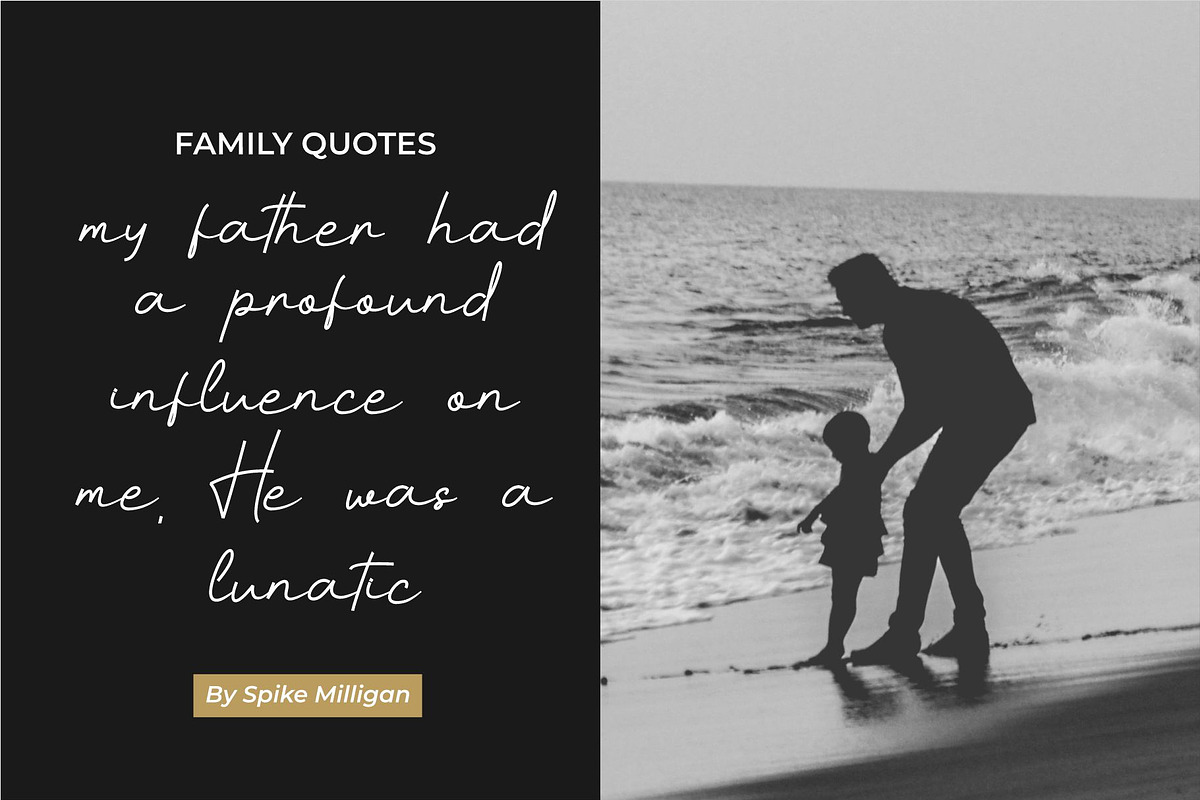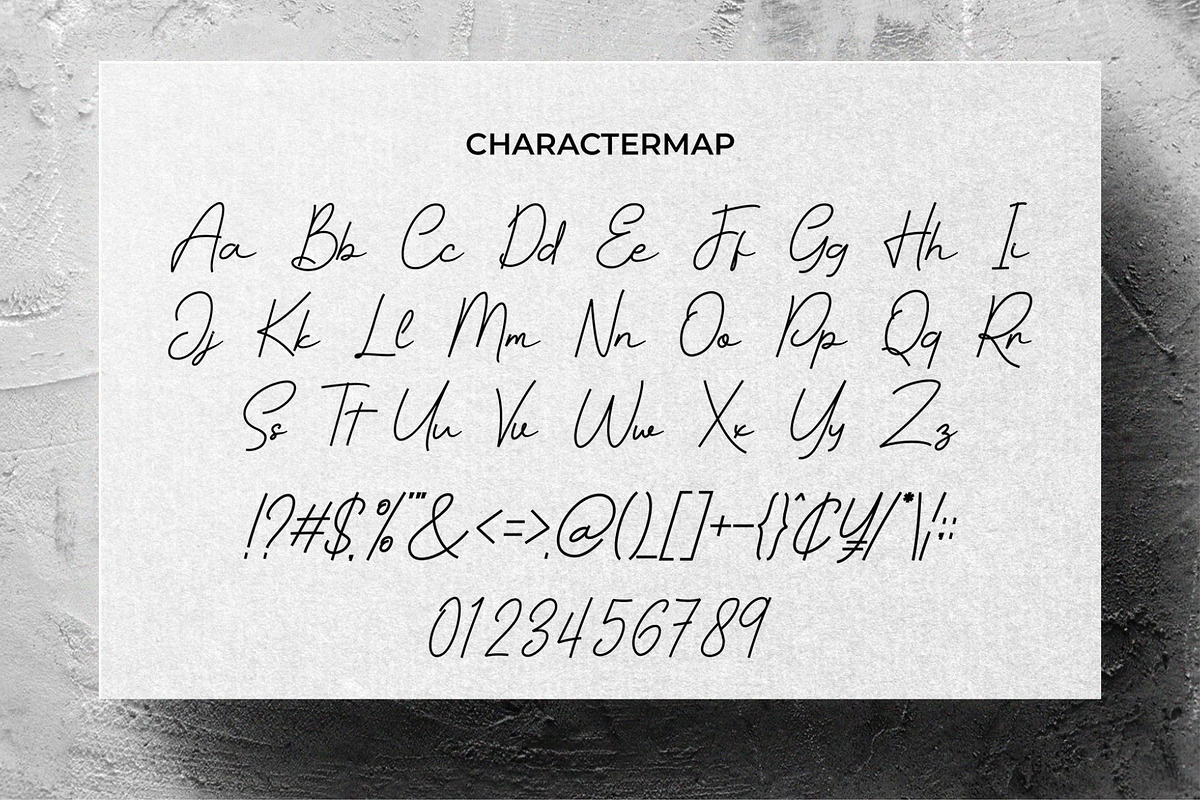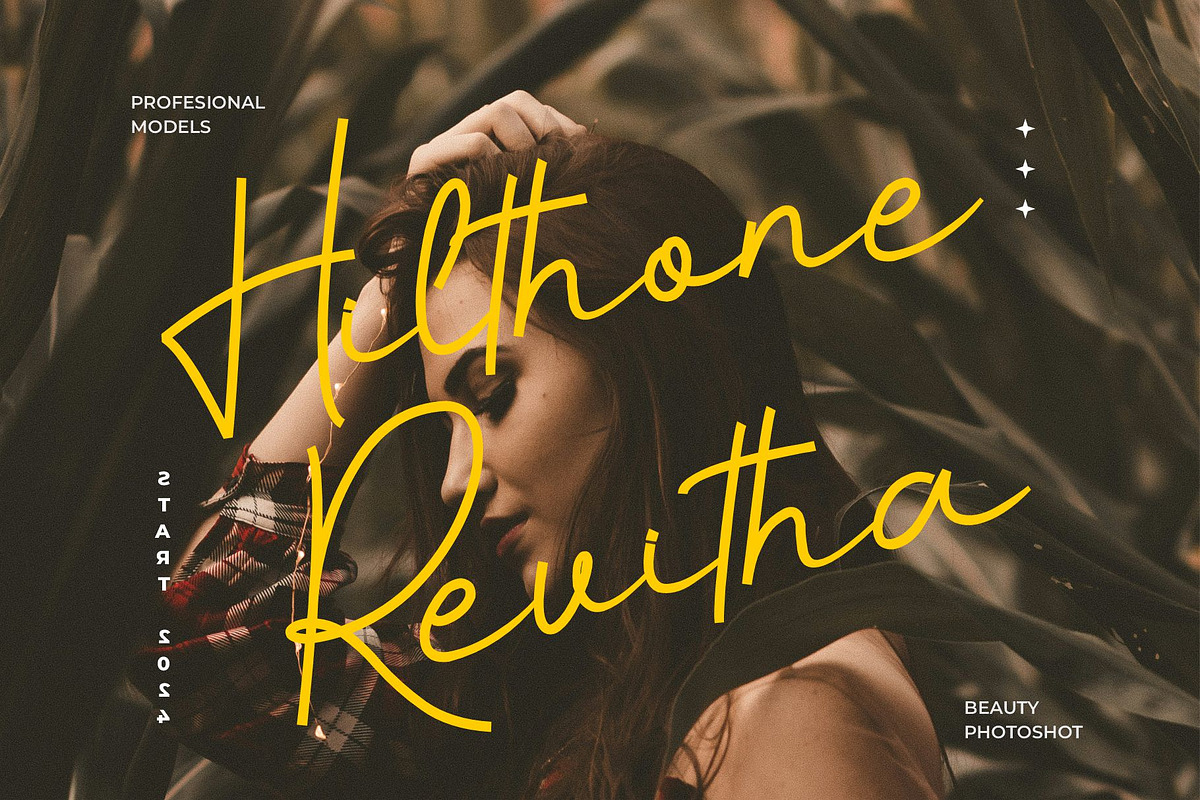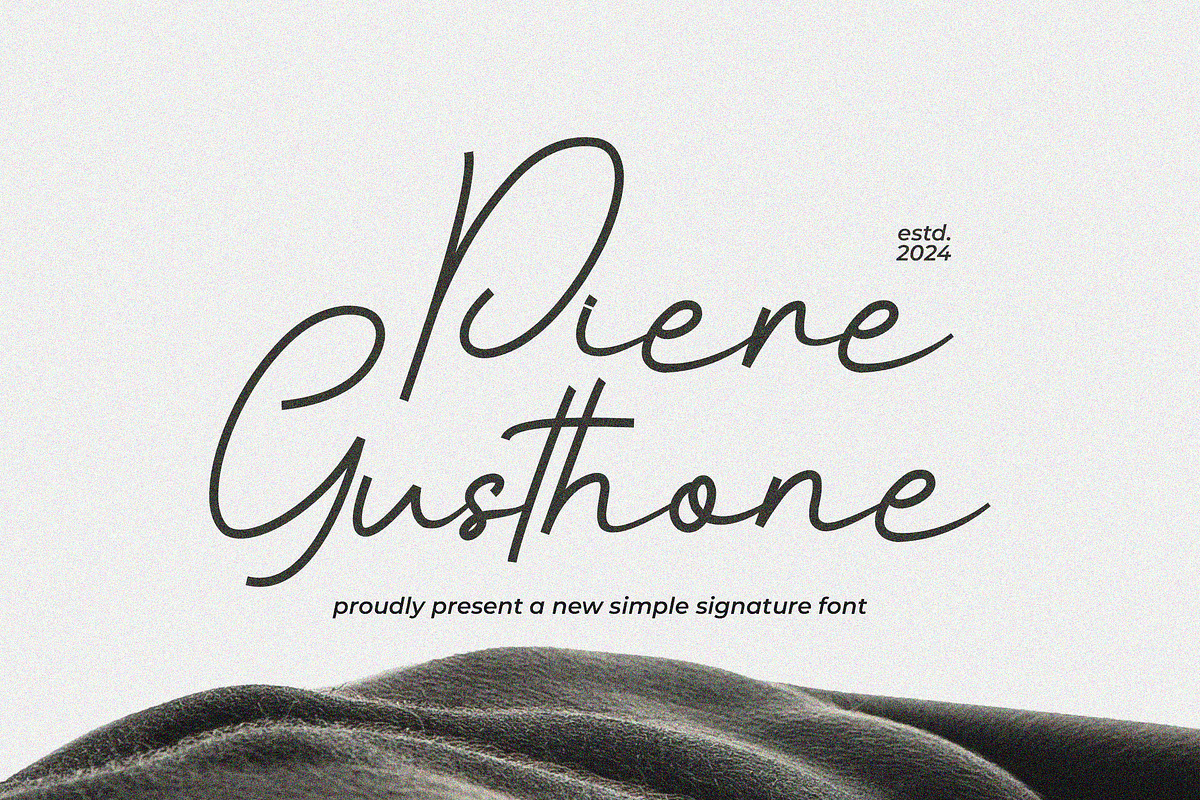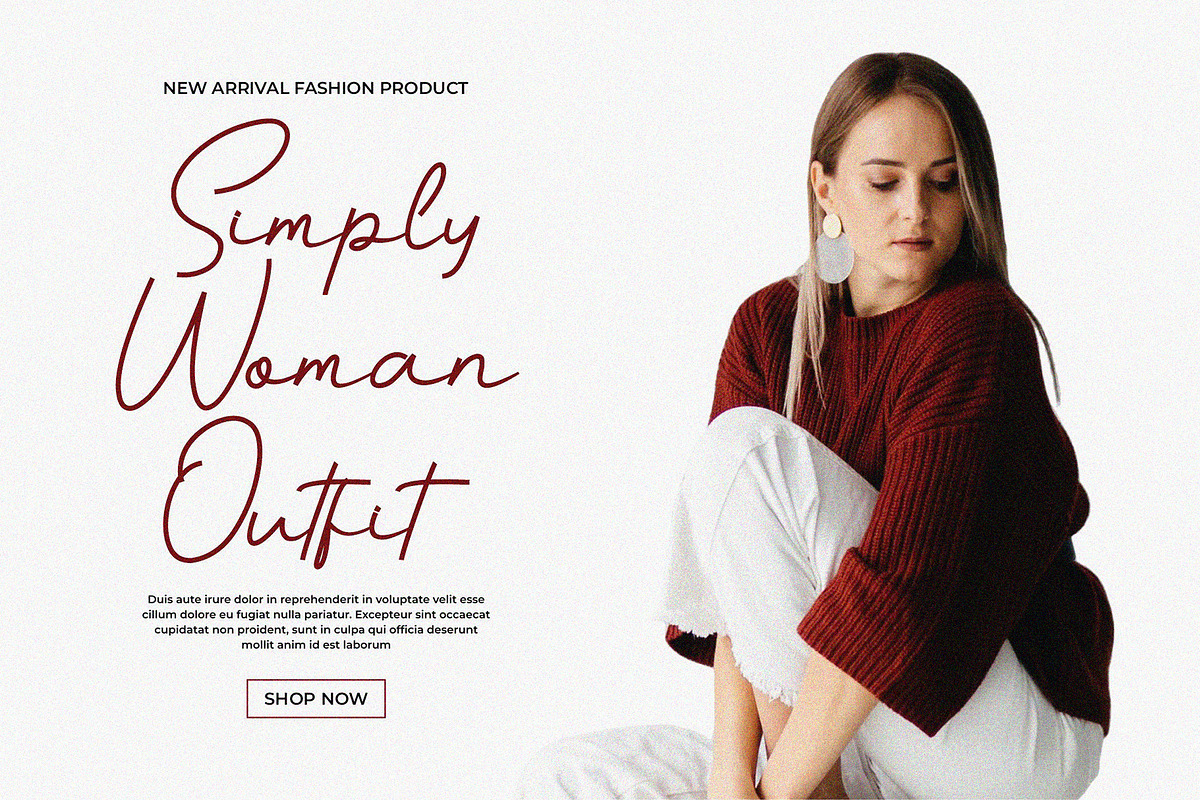
Piere Gusthone || Signature Font
Hello everyone, I would like to introduce Piere Gusthone a handwritten font with a casual and elegant style.
Piere Gusthone can also be used for a variety of projects such as branding, labels, photography, invitations, stationery, wedding designs, social media posts, advertising, product packaging, product design and other awesome projects.